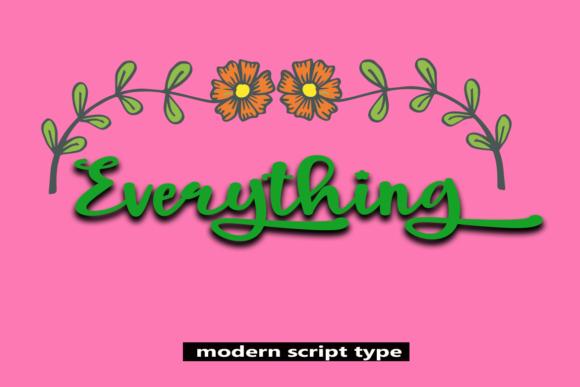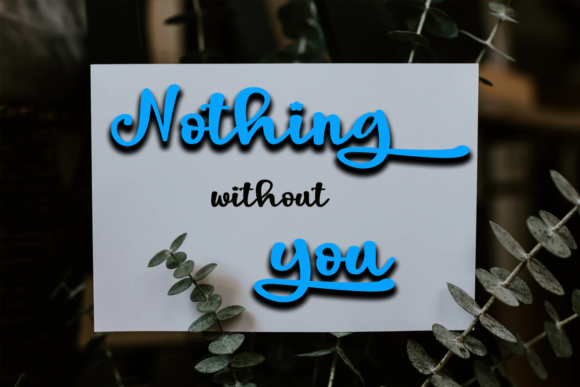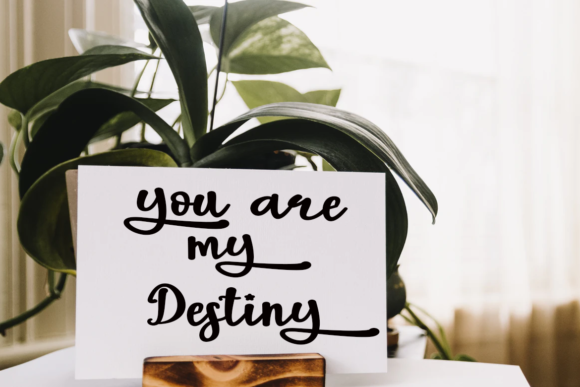
About Everything Font
“Everything” is a font that exudes exquisiteness, making it a true favorite for a wide range of design projects. Its masterful design enhances your creations, adding a touch of handwritten allure that captivates the eye.
With its classy calligraphic influences and contemporary feel, “Everything” brings a sense of elegance and modernity to your designs. Whether you’re working on invitations, branding materials, social media graphics, or any other project, this font elevates each creation with its effortless beauty.
“Everything’s” handwritten essence adds a personal and authentic touch to your designs, making them feel refined and sophisticated. It’s like a timeless piece of art that infuses your creative ideas with a sense of grace.
Incorporating “Everything” into your designs allows you to explore a wide range of creative possibilities. Its varying baseline, smooth lines, gorgeous glyphs, and stunning alternates create a mesmerizing visual experience, adding an artistic flair that enhances the overall appeal of your designs.
Fall in love with “Everything’s” versatility as it transforms your ideas into spectacular designs that resonate with elegance and contemporary charm.
In summary, “Everything” is more than just a font; it’s an exquisite masterpiece that elevates your projects to the highest levels. Embrace its beauty and notice how it transforms your creative ideas into spectacular works of art. With “Everything,” your designs become true expressions of elegance and sophistication, leaving a lasting impact on all who encounter them. Let “Everything” be the font that adds a touch of magic to your designs, creating a world of endless possibilities and capturing the hearts of your audience.